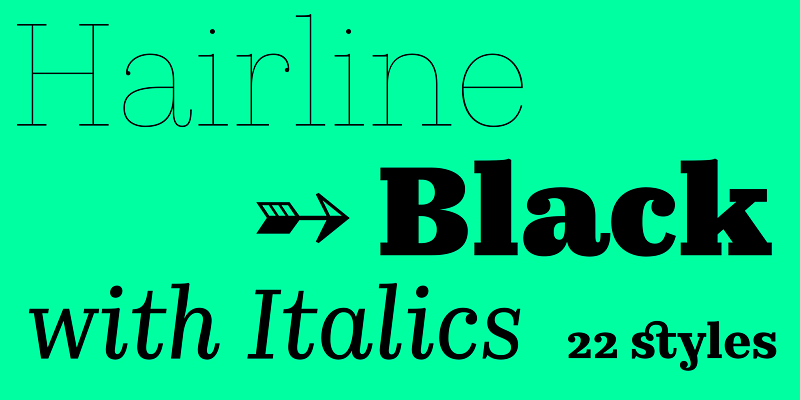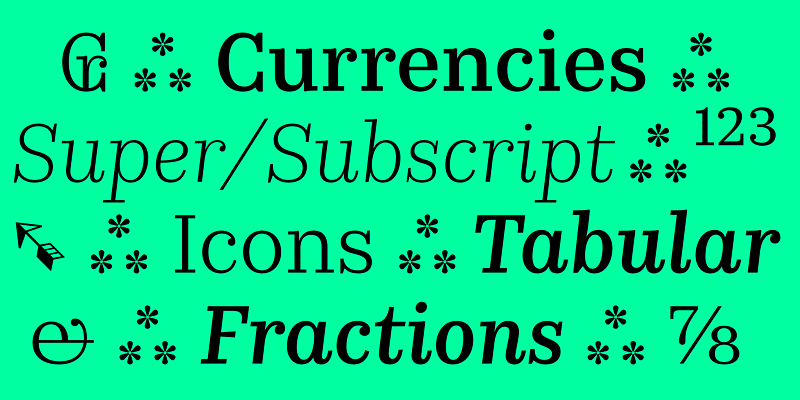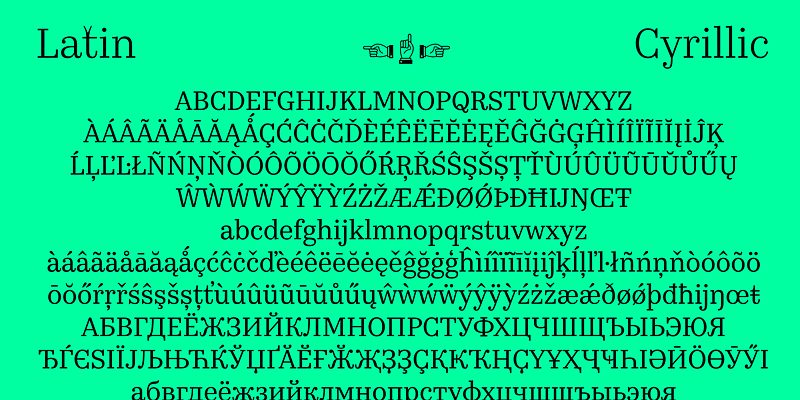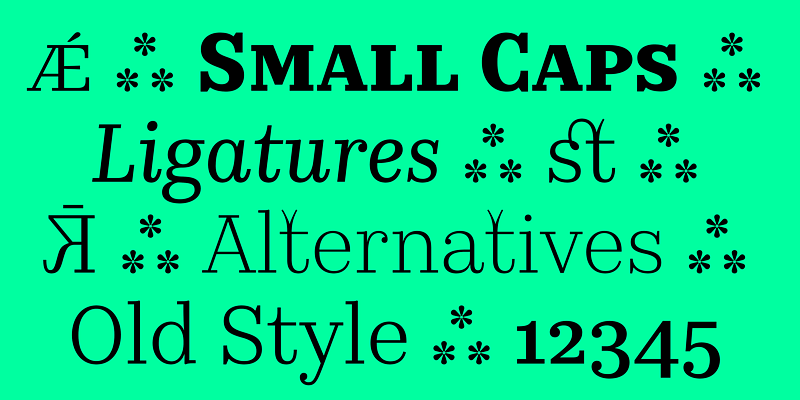
Kazimir Text is a Modern serif typeface with a quite simple graphic idea. It is a Text version of display Kazimir typeface. Kazimir Text has a bit wider proportions, a bit lower contrast and much wider codepage with extended language support compare to Kazimir. A set of stylistic alternatives called Irregular was also reconsidered — they became also more suitable for text usage. The amount of styles also became much wider: 11 romans and 11 italics.